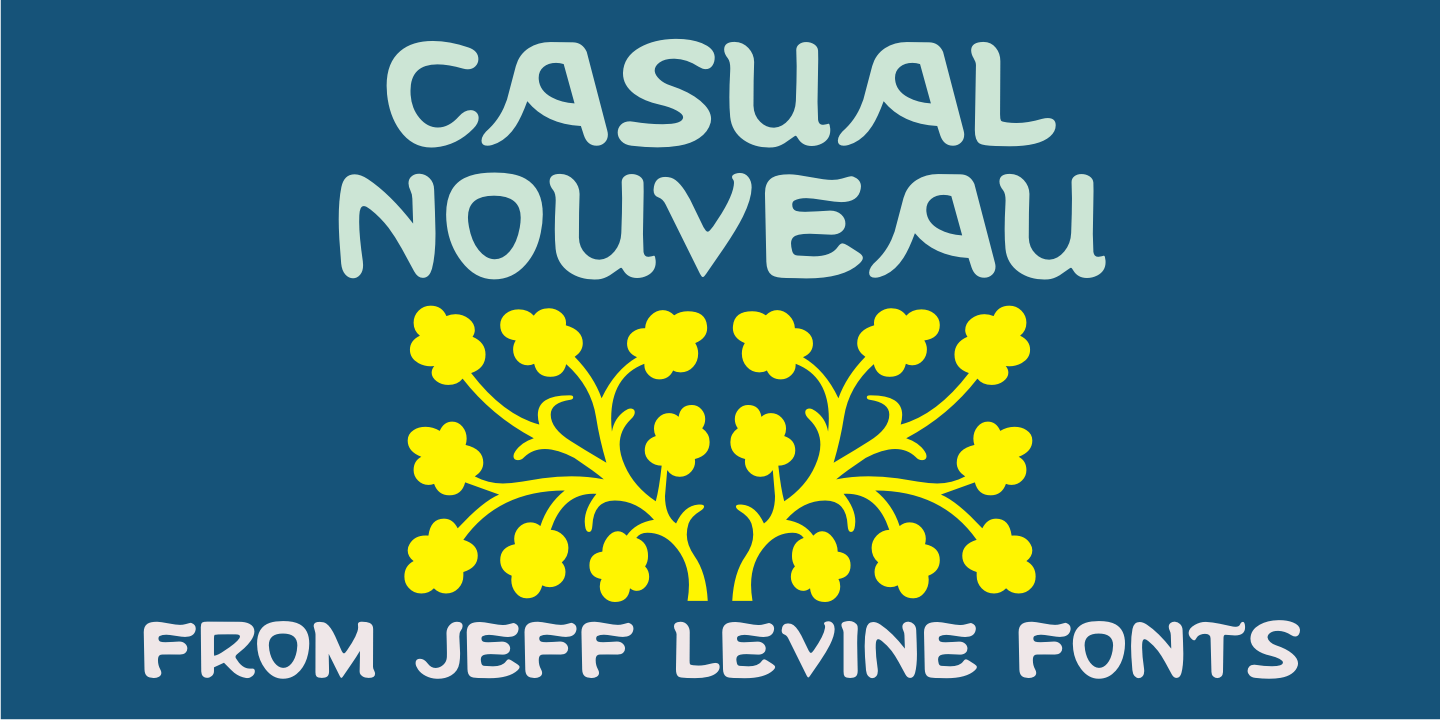
Casual Nouveau
Free-flowing pen lettering of the Art Nouveau period took letter forms into interesting curves and angles. The style was embraced and revived by the 1960s counter-culture in its rock concert posters and record album covers.
However, the source for Casual Nouveau JNL is a 1911 piece of sheet music entitled 'Back to the Carolina You Love”.